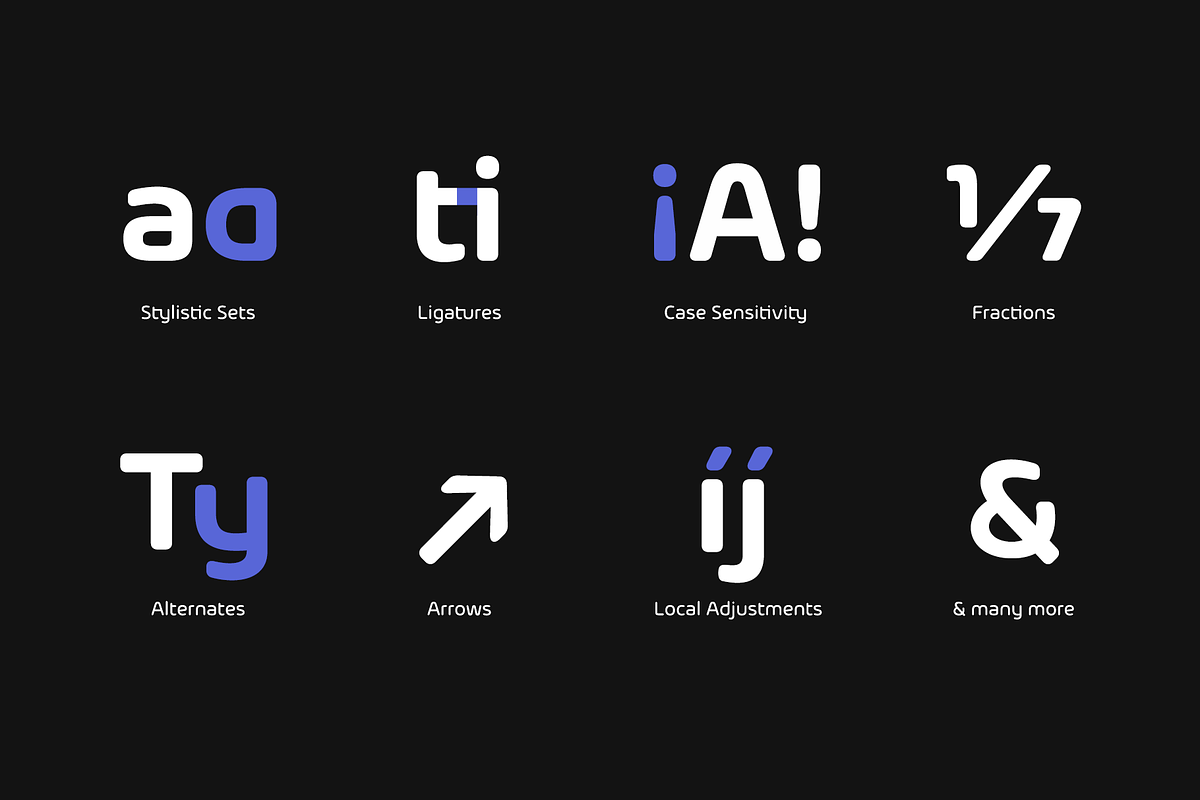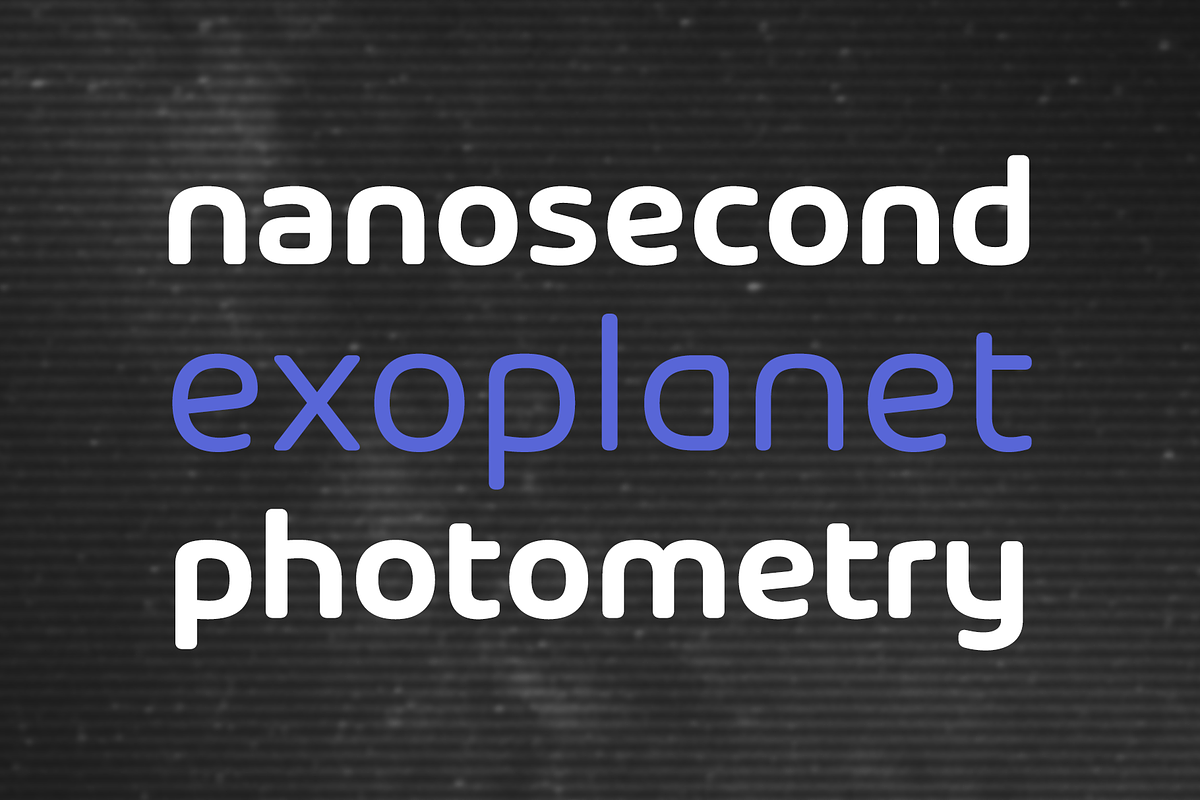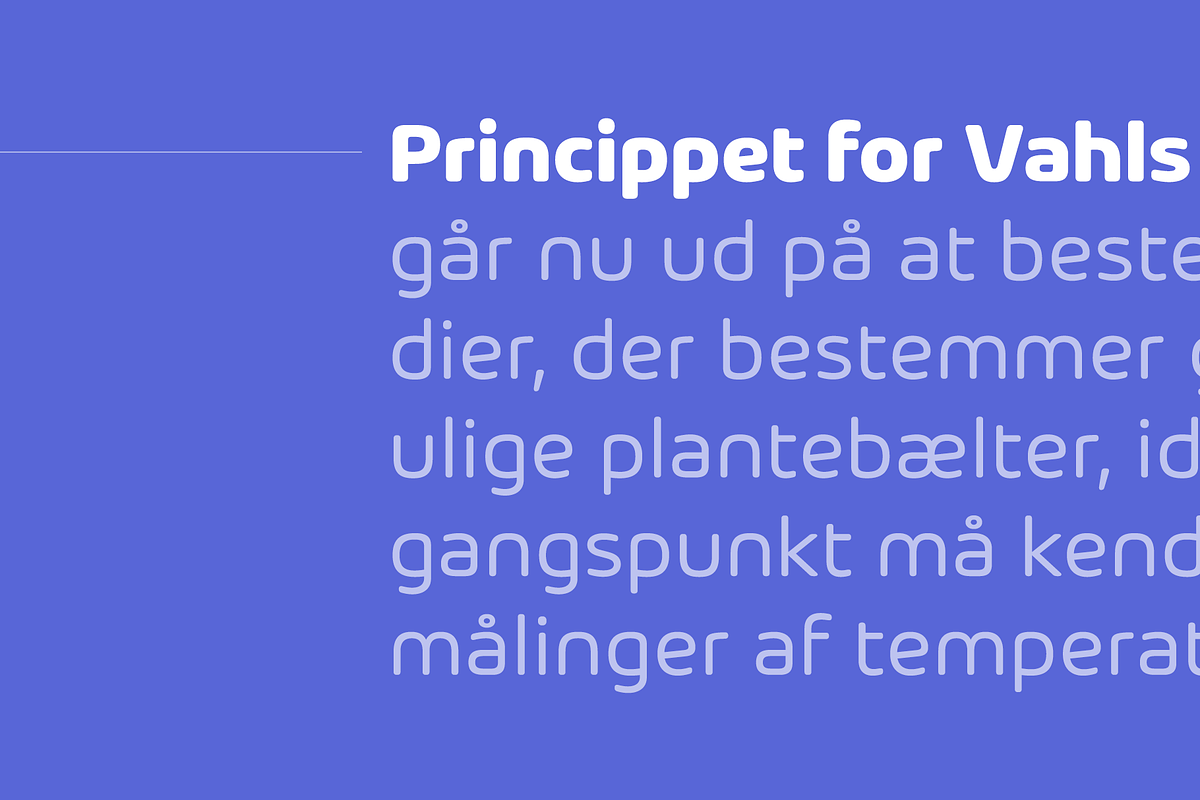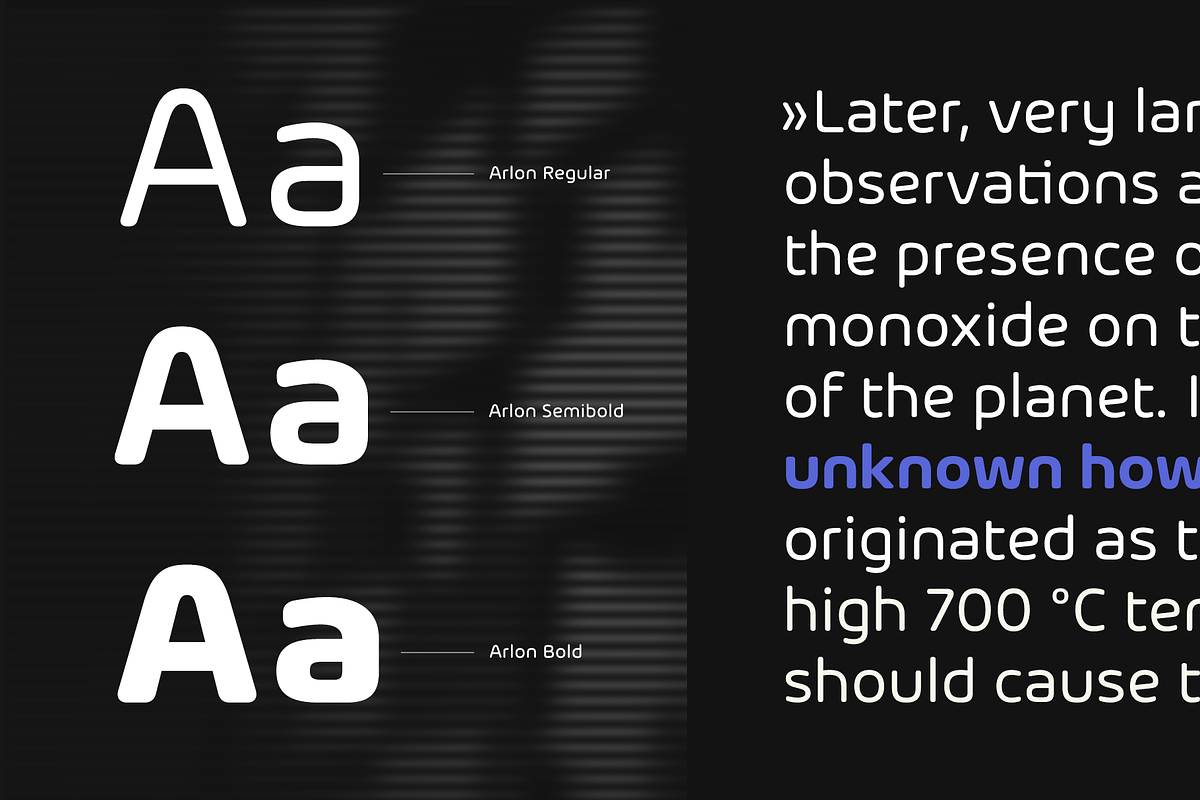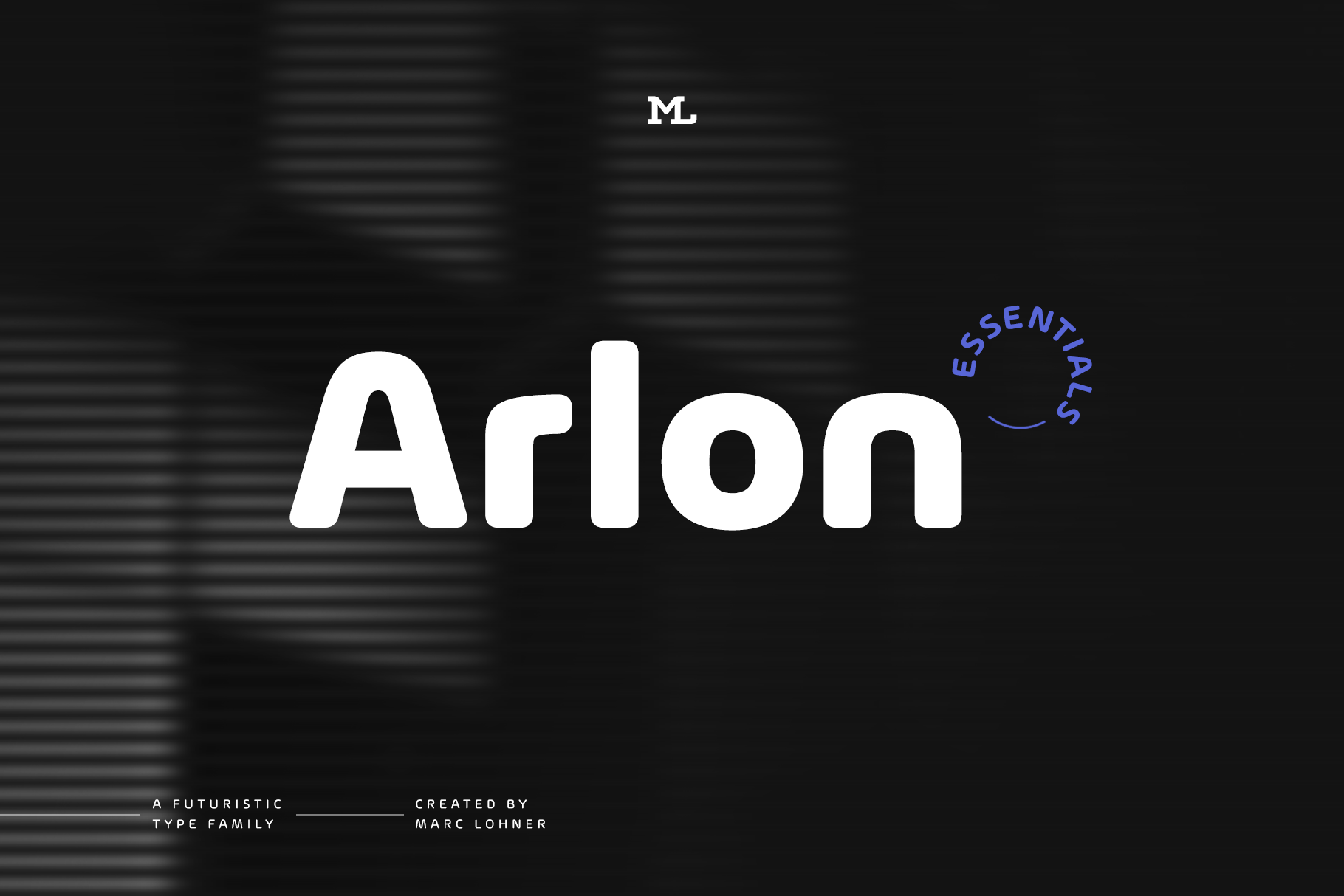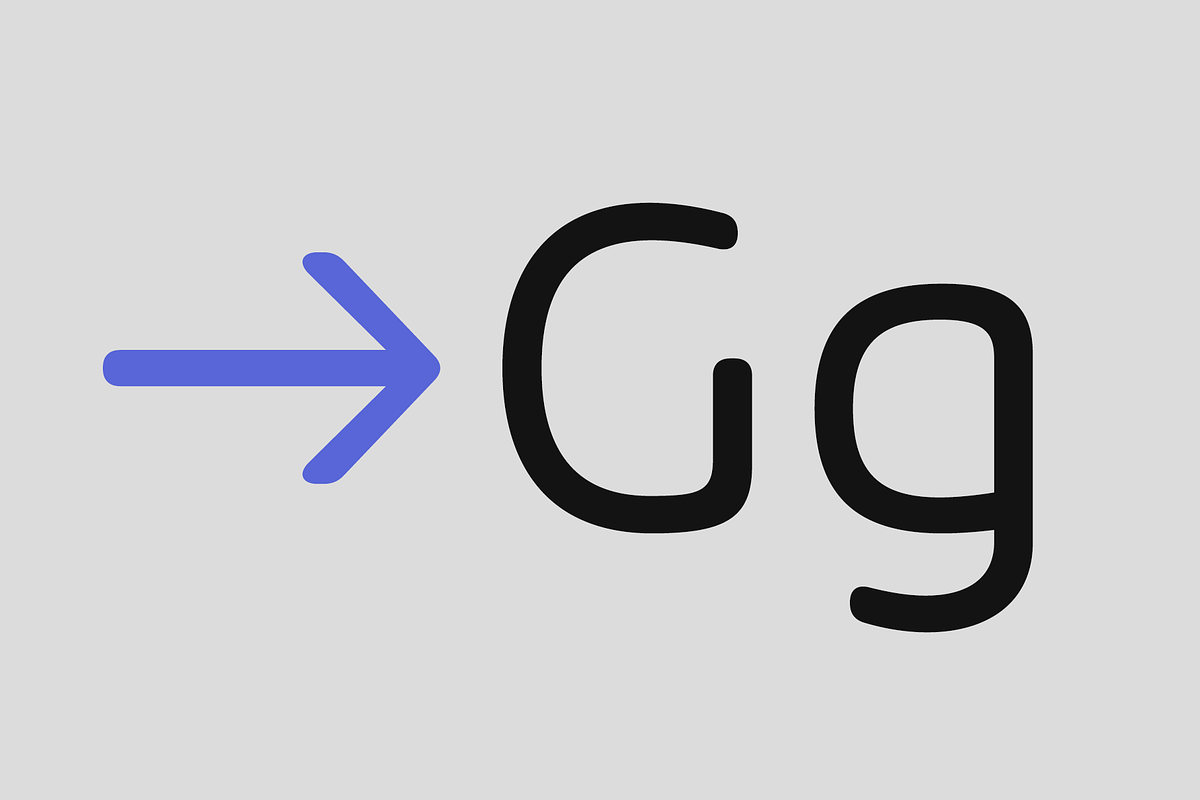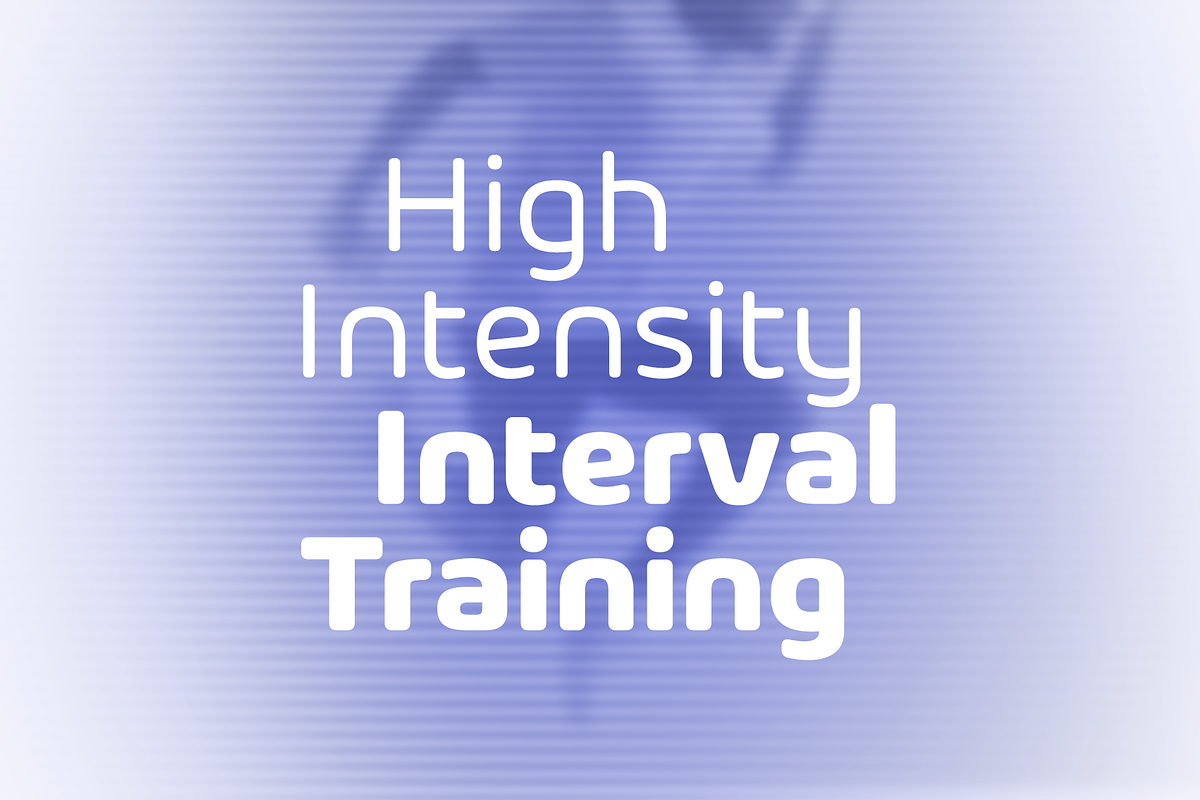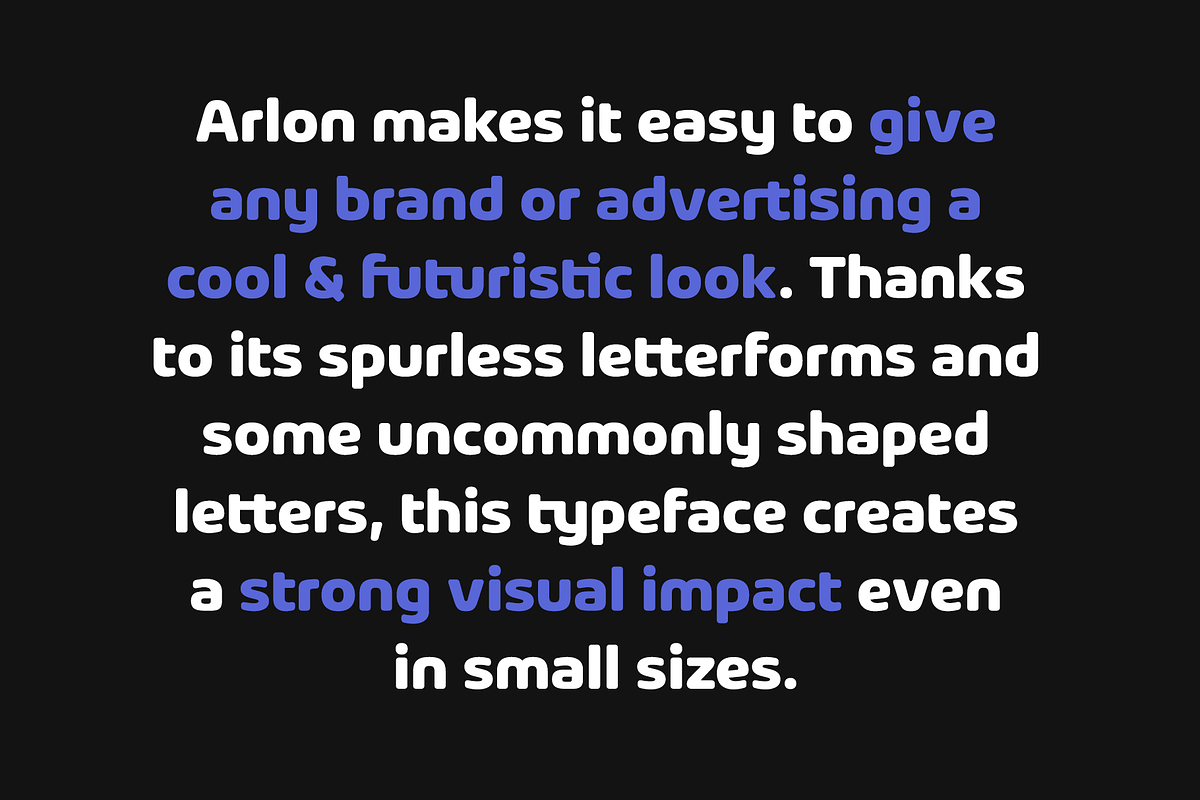
Arlon – Futuristic Font Family
Arlon makes it easy to give any brand or advertising a cool & futuristic look. Thanks to its spurless letterforms and some uncommonly shaped letters, this typeface creates a strong visual impact even in small sizes. Having generously rounded angles and terminals, Arlon also spreads warmth and friendliness. To sum up, Arlon communicates an affinity for technology – in a friendly way.
- 3 weights
- 631 glyphs per weight
- 200+ languages covered
- stylistic alternates
- many numerical variations
- arbitrary fractions
- automatic arrows
- and more!